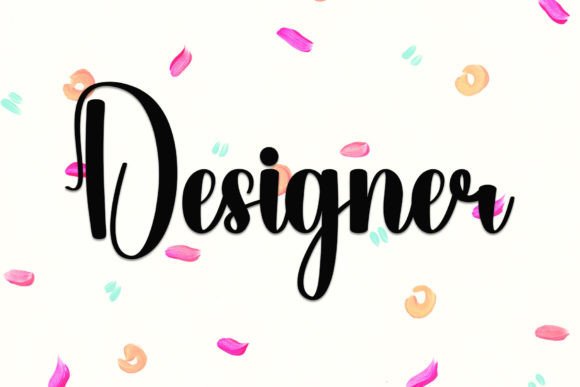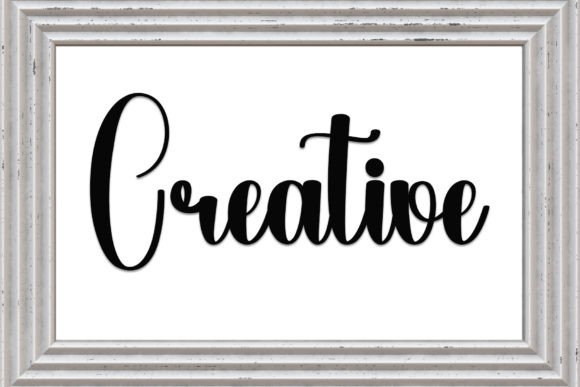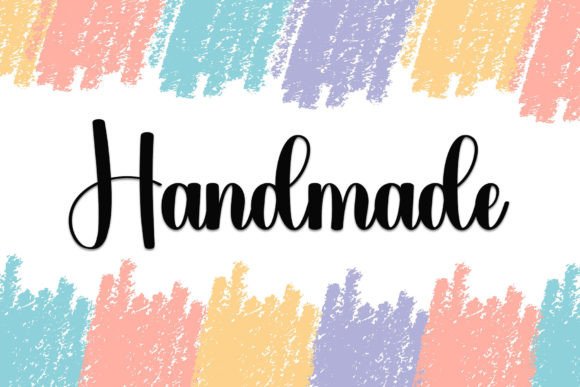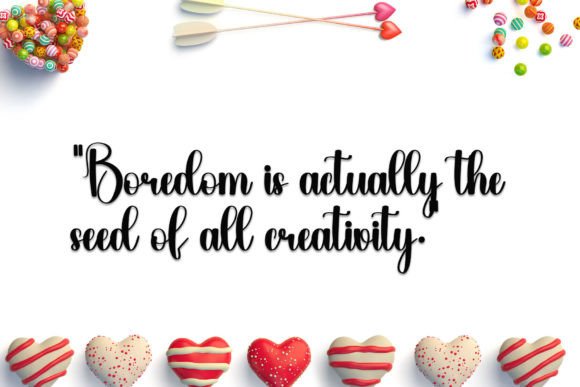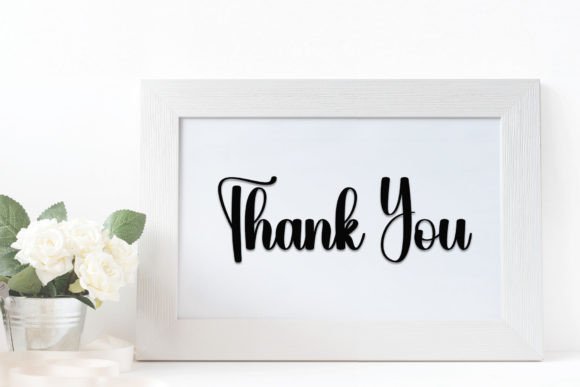
Discover the Elegance of Coquette Font: Elevate Your Designs with Timeless Style
Are you on the hunt for a font that exudes elegance, sophistication, and a touch of whimsy? Look no further than the Coquette Font, a stunning handwritten typeface that is sure to capture your heart. With its incredibly distinct and timeless style, Coquette is the perfect addition to any design project, from crafting and DIY endeavors to professional branding and marketing materials.
The Beauty of Coquette Font
Coquette Font is described as a neat and beautiful handwritten font, characterized by an elegant touch that sets it apart from other typefaces. Its unique blend of classic and modern elements makes it an versatile choice for designers and crafters alike. Whether you’re creating invitations, logos, social media graphics, or any other visual content, Coquette Font is sure to add a touch of sophistication and refinement.
What Makes Coquette Font So Special?
So, what makes Coquette Font so special? Here are just a few reasons why designers and crafters are falling in love with this beautiful typeface:
- Elegant and Refined: Coquette Font boasts an elegant and refined aesthetic that’s perfect for designs that require a touch of sophistication.
- Unique and Distinct: With its incredibly distinct style, Coquette Font is sure to make your designs stand out from the crowd.
- Timeless Appeal: Unlike trendy fonts that quickly go out of style, Coquette Font has a timeless appeal that ensures your designs will remain relevant for years to come.
- Versatile: Coquette Font is suitable for a wide range of design projects, from digital graphics to print materials.
How to Use Coquette Font in Your Designs
Ready to fall in love with Coquette Font? Here are some ideas for incorporating this beautiful typeface into your designs:
- Wedding Invitations: Add a touch of elegance to your wedding invitations, save-the-dates, and other stationery with Coquette Font.
- Branding and Logo Design: Use Coquette Font to create stunning logos, business cards, and marketing materials that showcase your brand’s personality.
- Social Media Graphics: Elevate your social media presence with eye-catching graphics featuring Coquette Font.
- Crafting and DIY Projects: Add a personal touch to your crafting and DIY projects, such as handmade cards, gift tags, and scrapbooking pages.
Tips for Getting the Most Out of Coquette Font
To get the most out of Coquette Font, here are some tips to keep in mind:
- Experiment with Colors: Pair Coquette Font with a range of colors to create stunning visual effects.
- Play with Sizes: Use Coquette Font in different sizes to add visual hierarchy and emphasis to your designs.
- Mix and Match: Combine Coquette Font with other typefaces to create unique and interesting typographic combinations.
In conclusion, Coquette Font is a beautiful and elegant handwritten typeface that’s perfect for designers and crafters looking to add a touch of sophistication to their projects. With its incredibly distinct and timeless style, Coquette Font is sure to become a favorite in your design arsenal. So why wait? Fall in love with Coquette Font today and start creating spectacular designs that showcase your unique style!